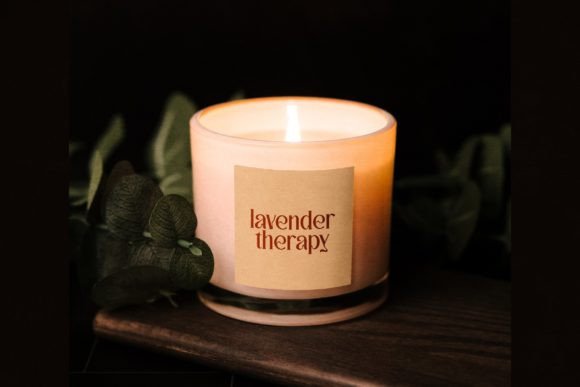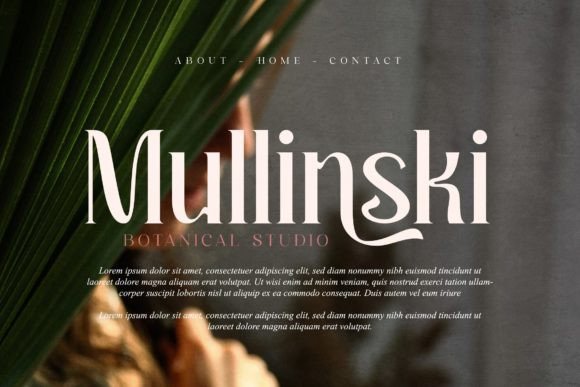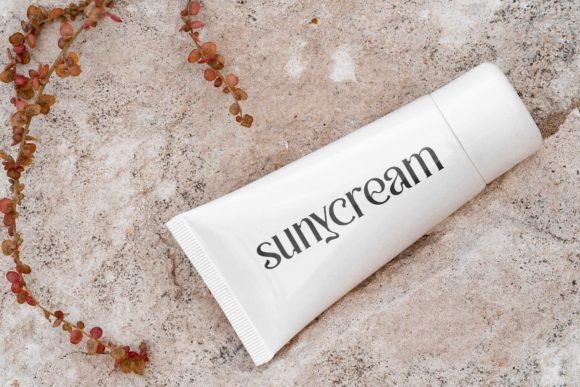
Introduction to Morgiah Font
Morgiah is a modern and unique serif font perfect for elegant and luxury logos, book or movie title designs, fashion brands, magazines, clothes, lettering, quotes, and so much more.
Why Choose Morgiah Font?
Morgiah Font offers exceptional quality and versatility, making it a valuable addition to your design toolkit. Whether you’re creating for personal projects or commercial use, Morgiah Font delivers professional results.